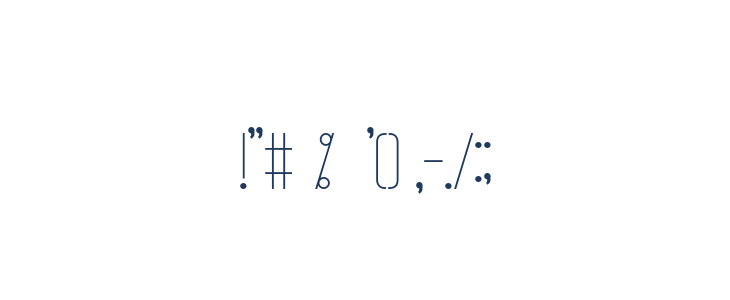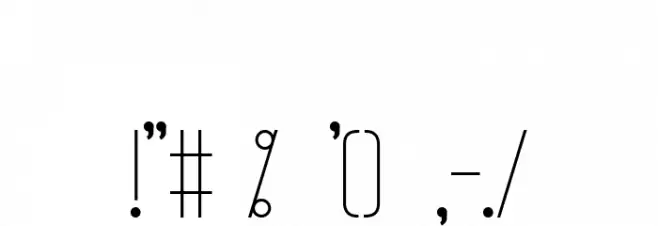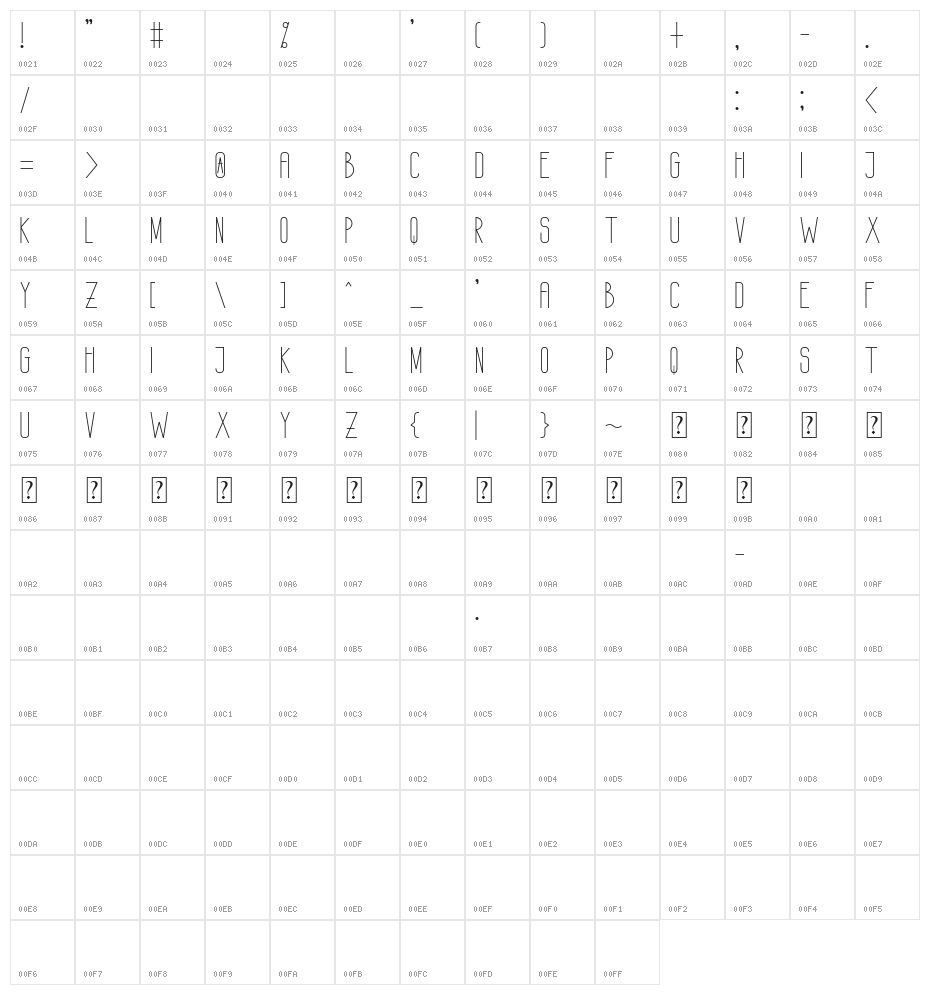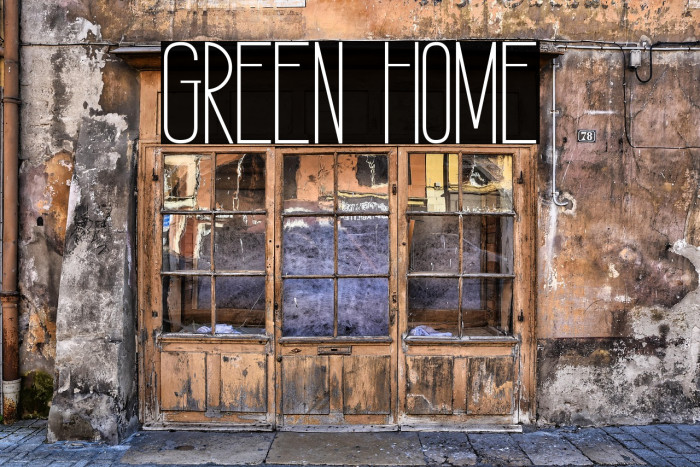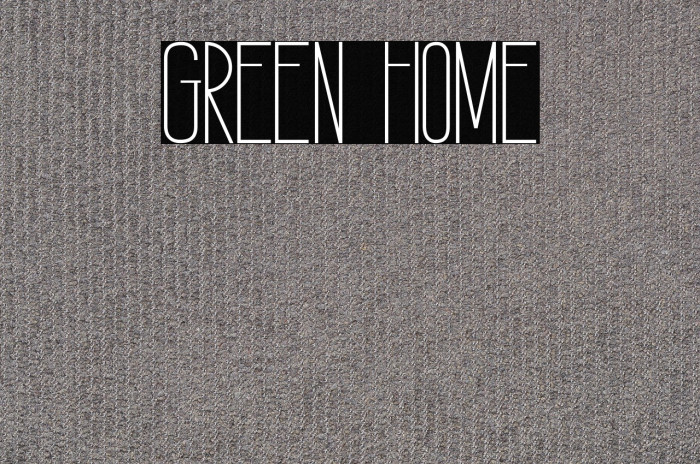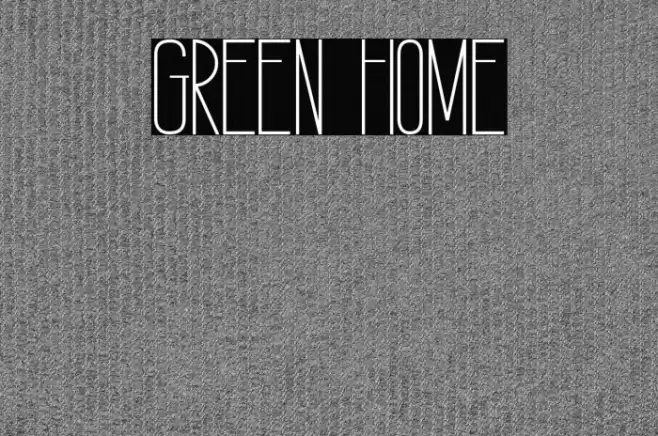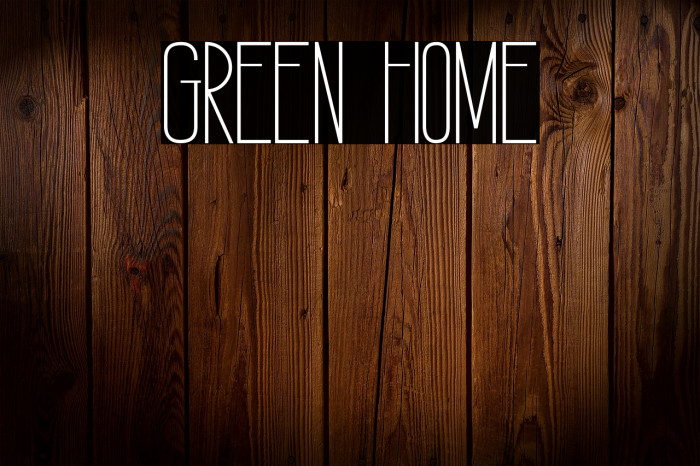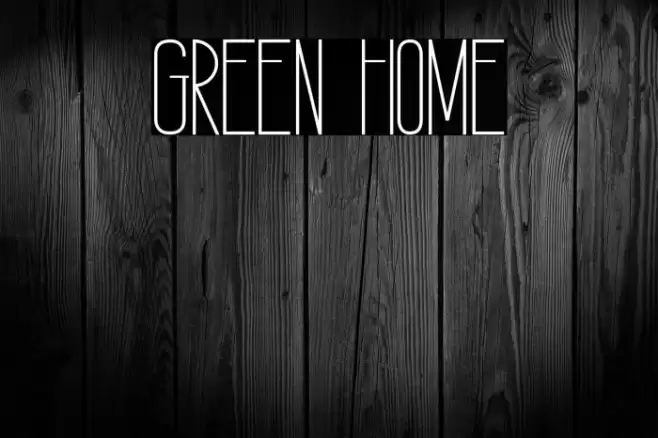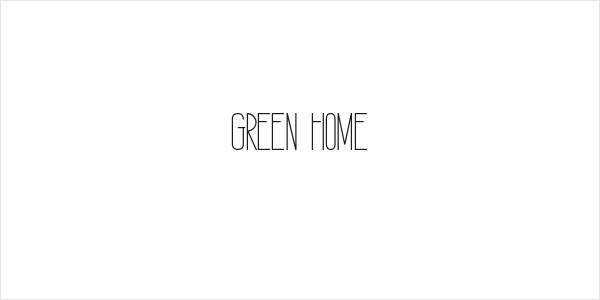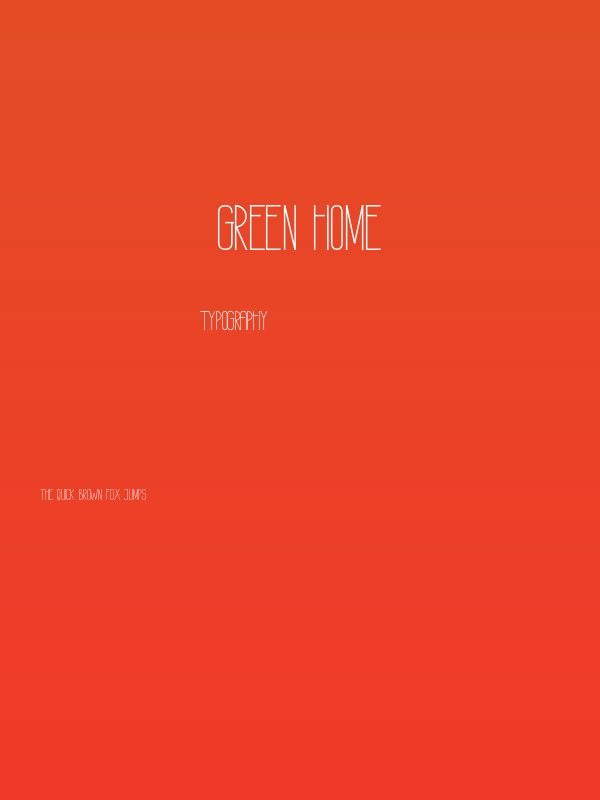
GREEN HOME Font
GREEN HOME Description
This font features a tall, narrow design with clean, straight lines and a modern aesthetic. The uppercase letters are elongated, giving a sleek and sophisticated appearance. The characters have a consistent stroke width, contributing to a uniform look across the alphabet. The font includes a full set of uppercase letters, numerals, and a selection of special characters, all maintaining the same geometric style. The overall design is minimalistic, making it suitable for contemporary projects that require a touch of elegance and simplicity.
| Proposed Projects | Ideal for branding, editorial design, posters, and modern web design projects. |